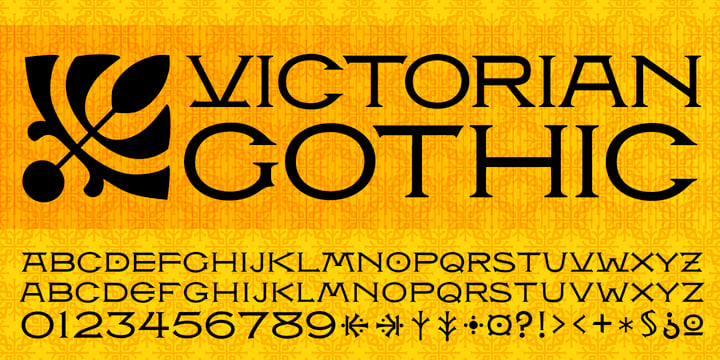
P22 Victorian Gothic
P22 Victorian Gothic™
P22 Victorian Gothic Font Family was designed by Richard Kegler, Christina Torre and published by P22 Type Foundry. P22 Victorian Gothic contains 4 styles and family package options. More about this family
About P22 Victorian Gothic Font Family
P22 Victorian is a font set created in conjunction with the Albright-Knox Art Gallery's exhibition of Victorian-era French artist James Tissot. The fonts developed for the P22 Victorian set are based on historic typefaces dating from the late 19th century. Victorian Gothic was based on a type style called ‘Atlanta’, a simple, expanded width, quirky, yet elegant face similar to ‘Copperplate’. Victorian Swash was inspired by the willowy, delicate face ‘Columbian’, which has also been known in recent years as ‘Glorietta’. The P22 version includes ‘snap-on’ flourishes based on the original 'Columbian' ornamental embellishment designs. Victorian Ornaments features over 150 decorative embellishments.